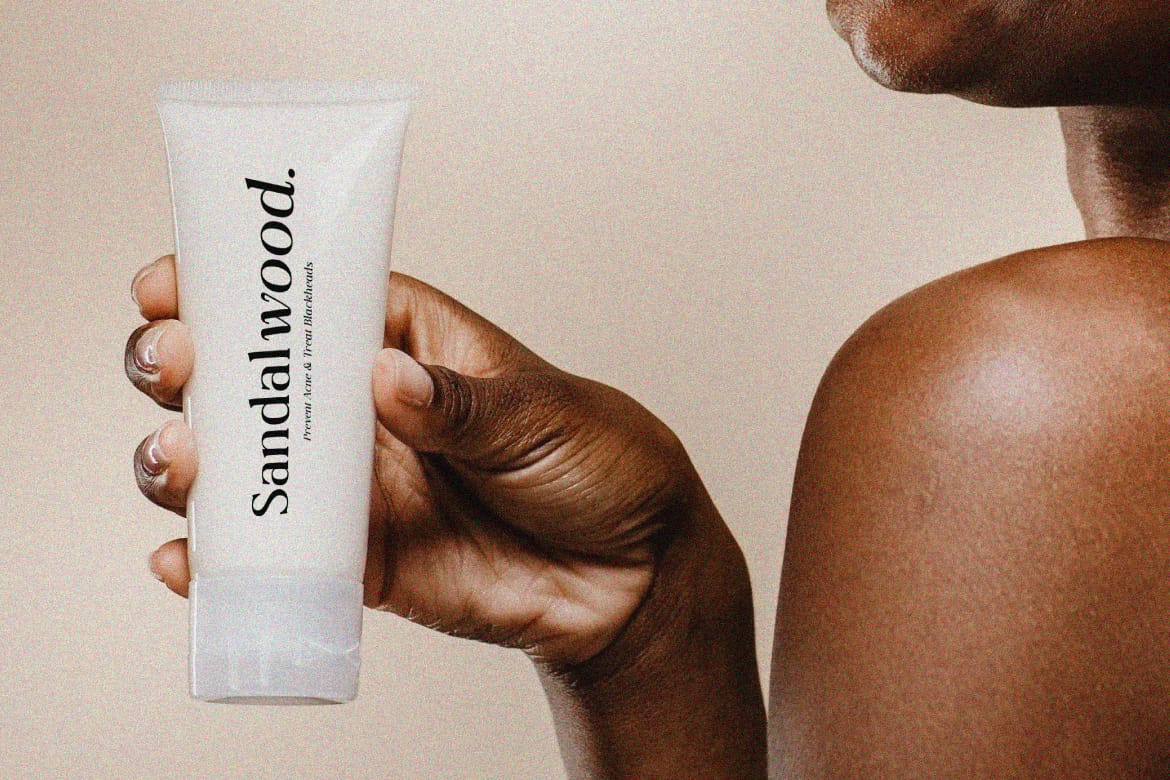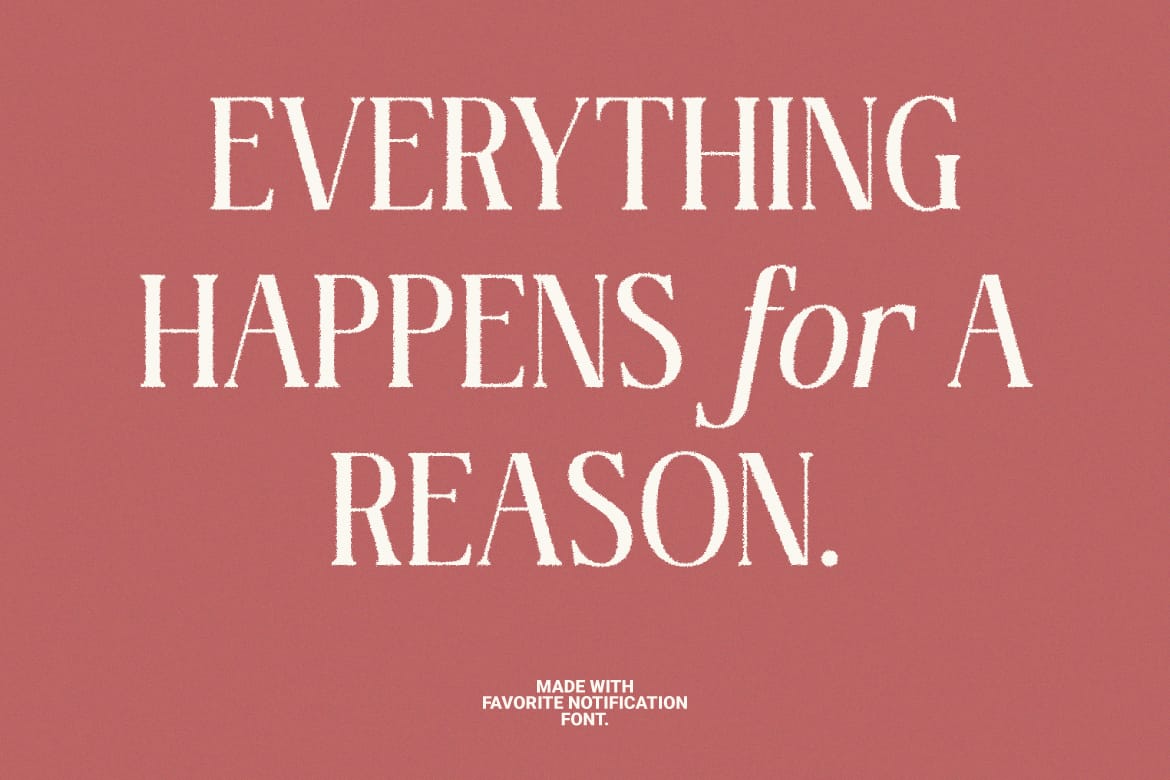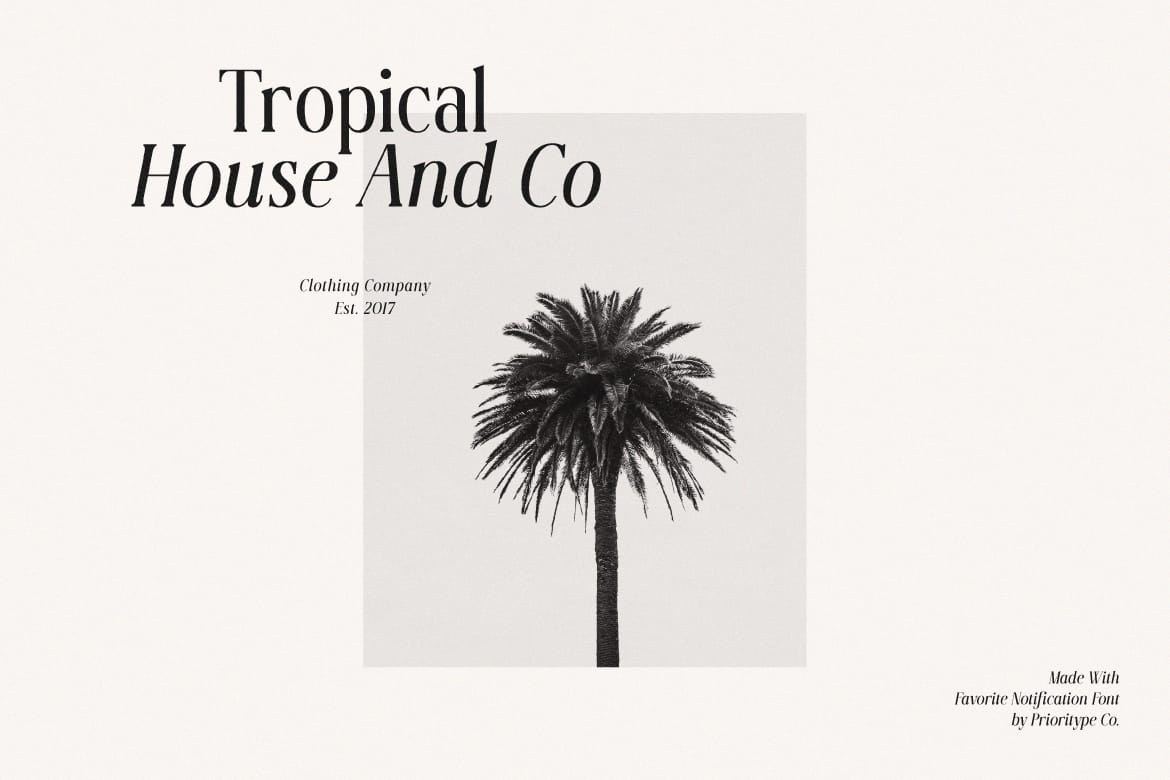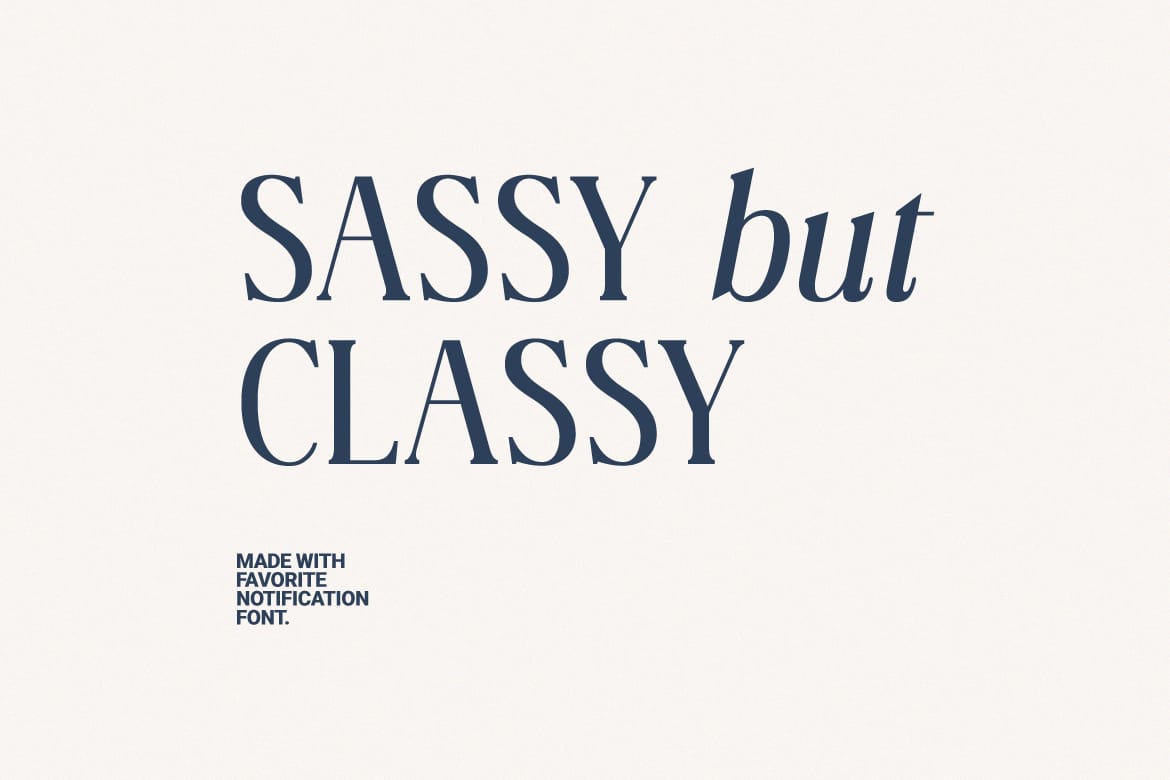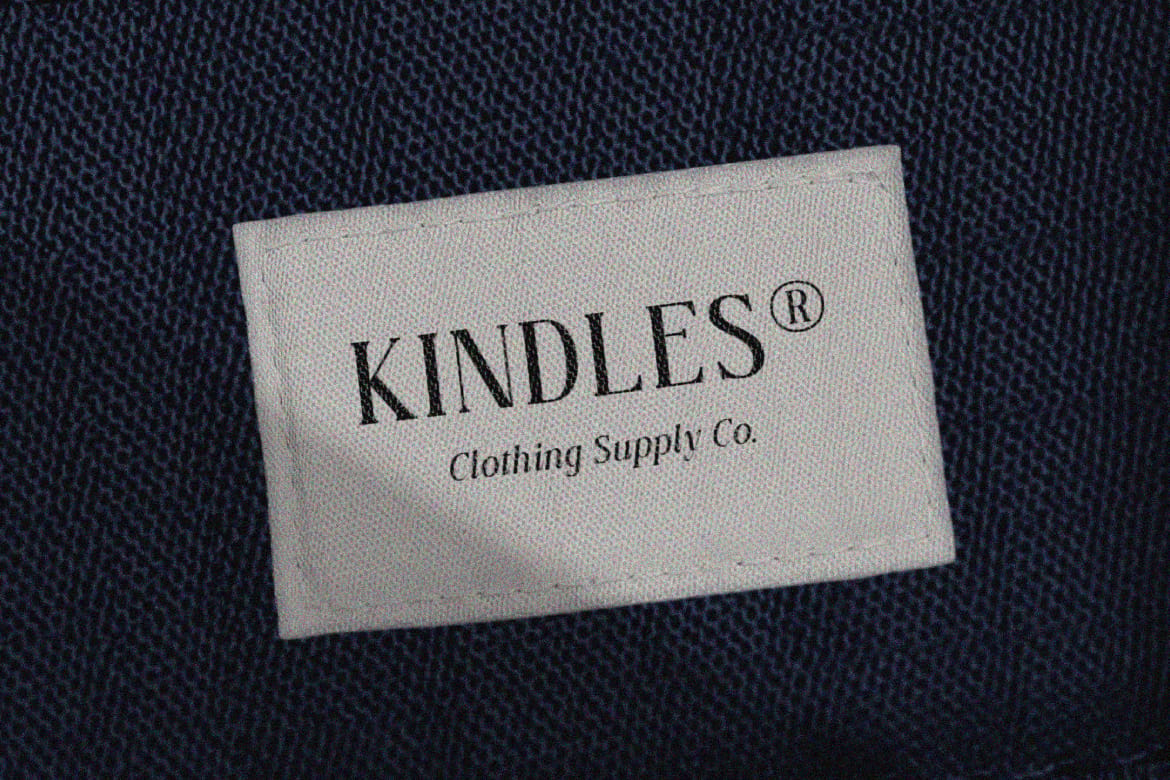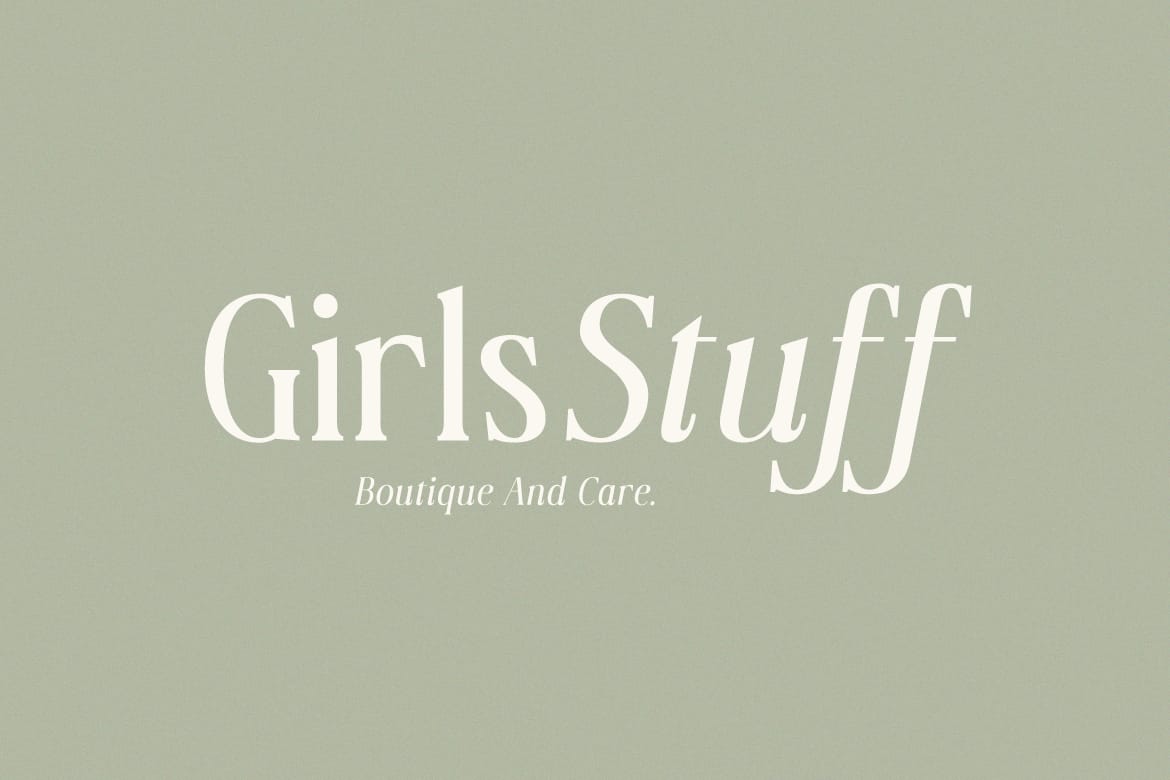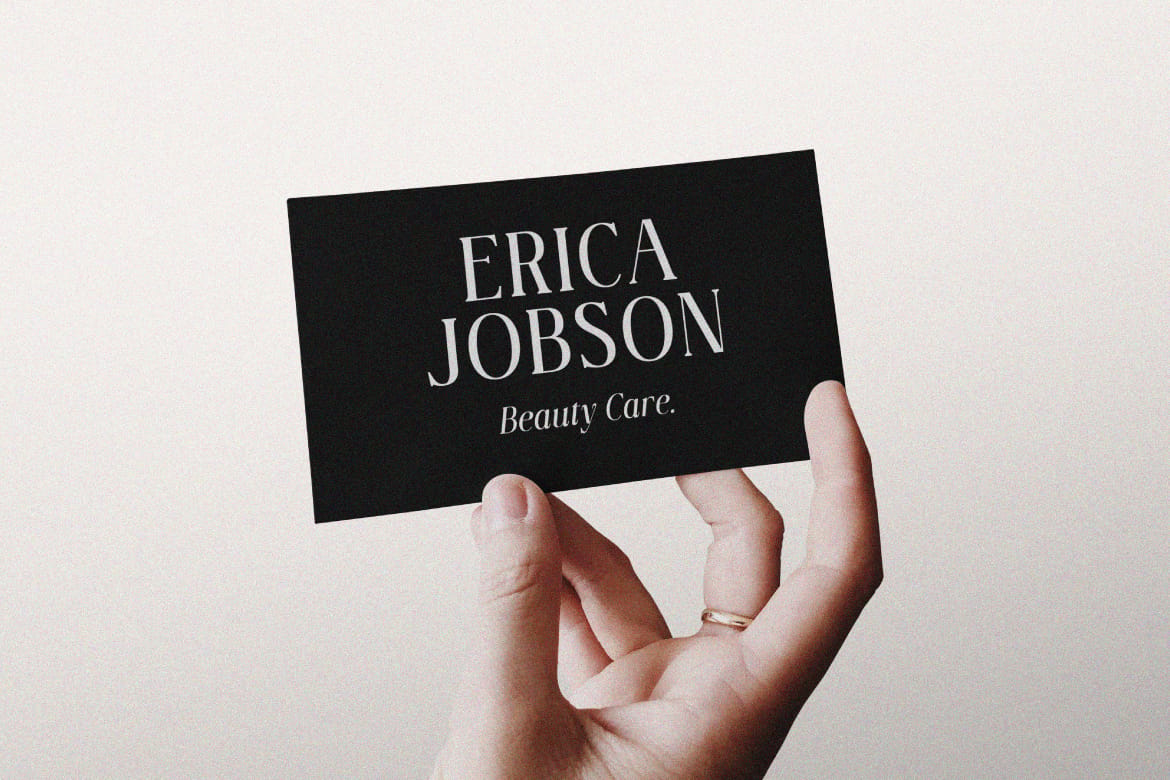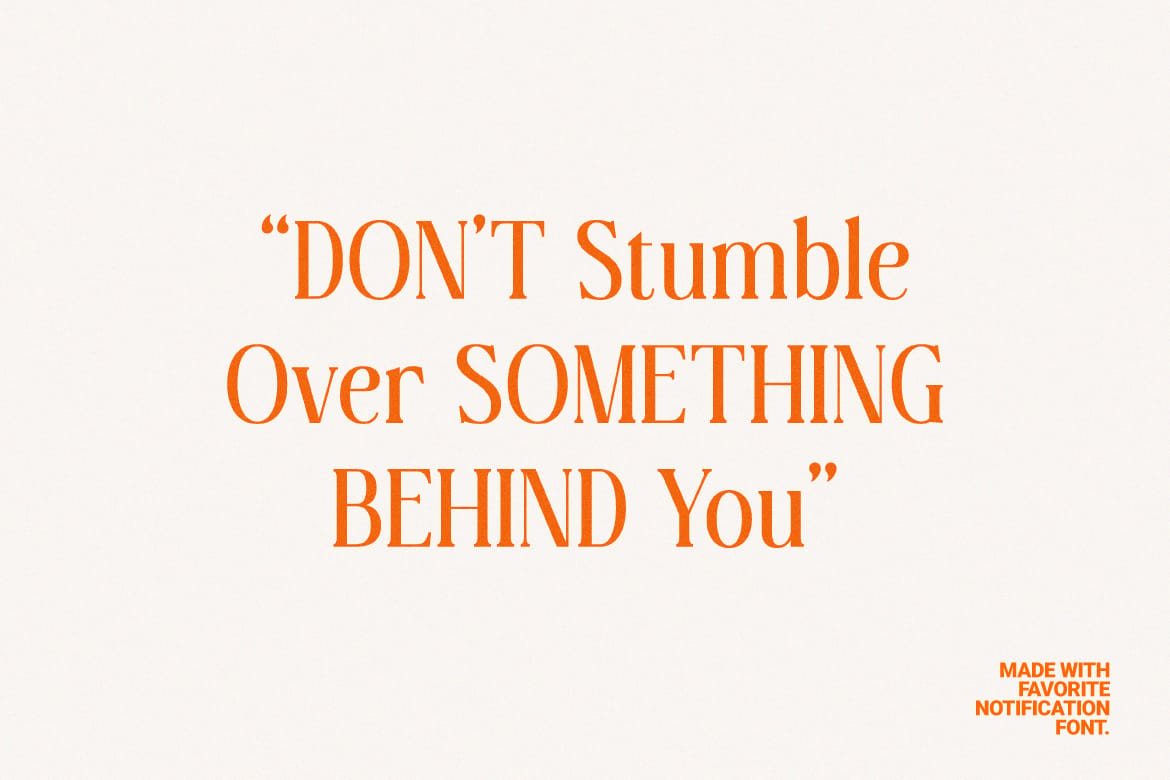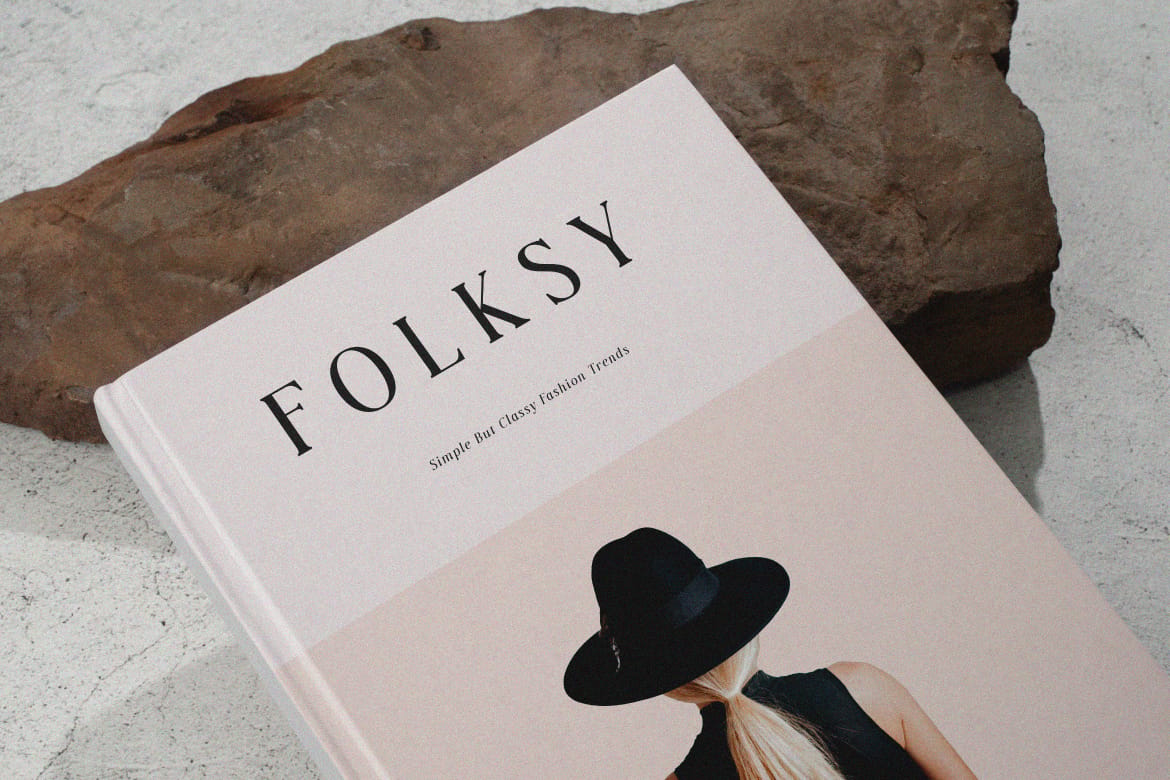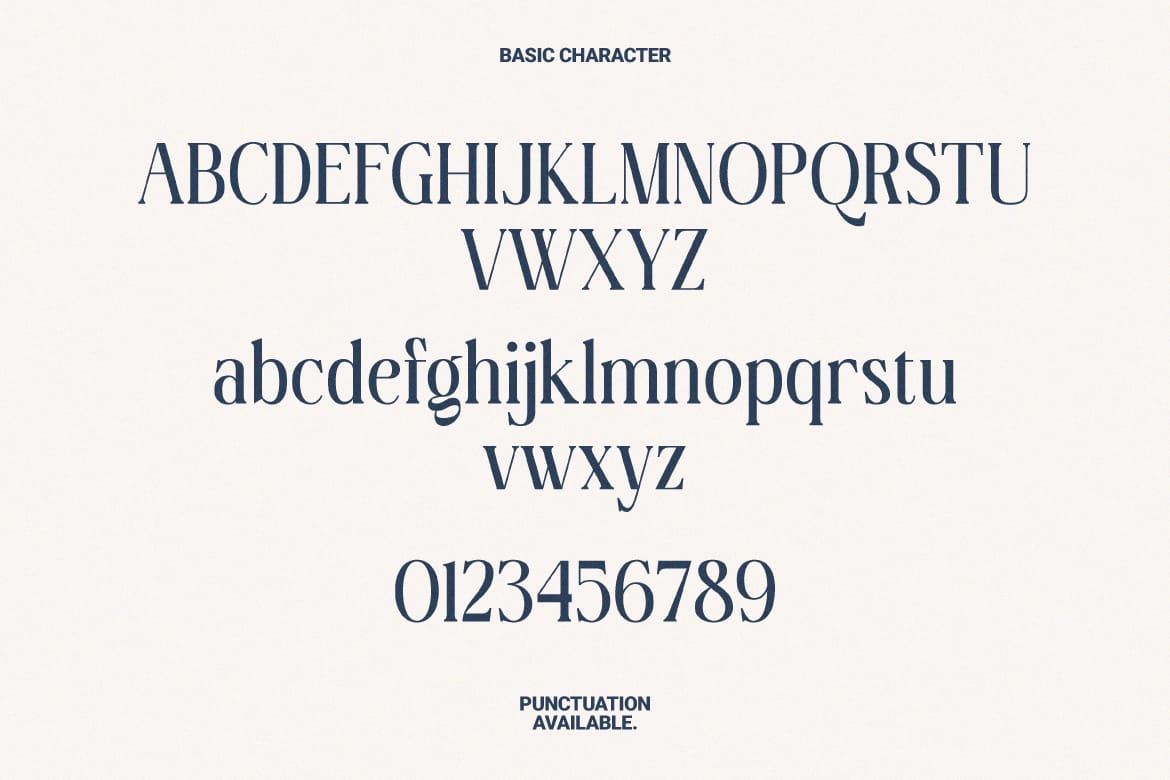
Favorite Notification
Favorite Notification by Prioritype Co. Introducing a new typeface. Yes, "Favorite Notification" is a modern and classic style serif font. The combination of regular & italic is very pleasing to the eye. It is suitable for branding designs, invitations, magazines and so on. Features: Uppercase, Lowercase, Numeral, Punctuation, Multilingual & Ligatures. Obtained file format: Otf & Ttf. For any questions please contact me :) Thanks!
• Regular & italic serif styles
• Modern, classic branding typeface